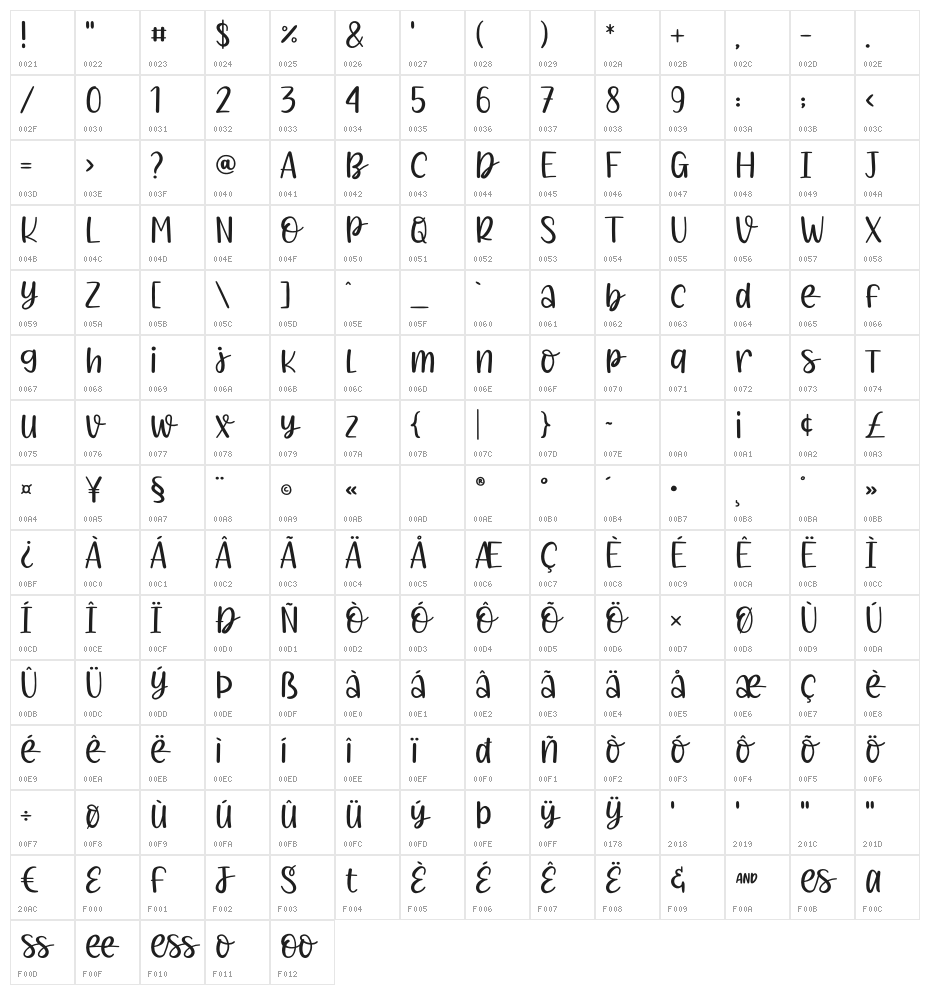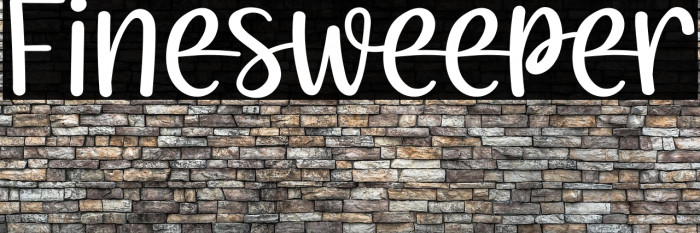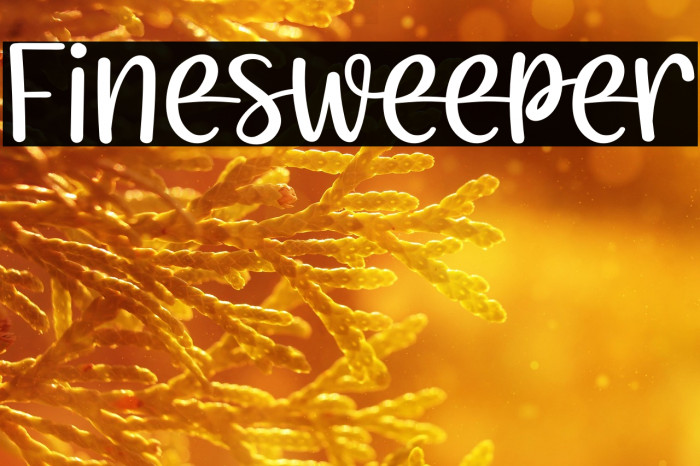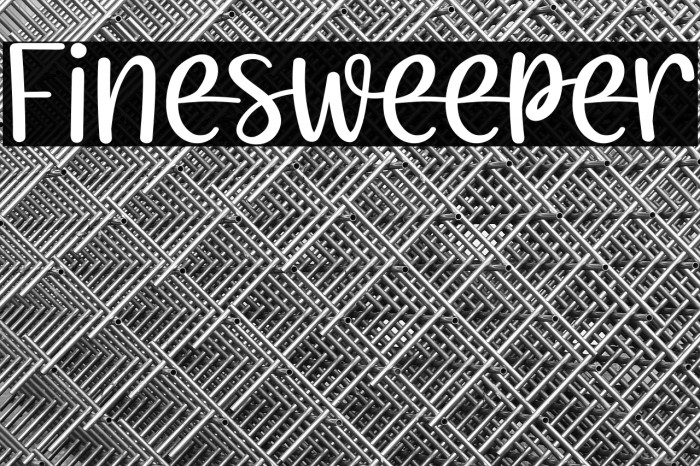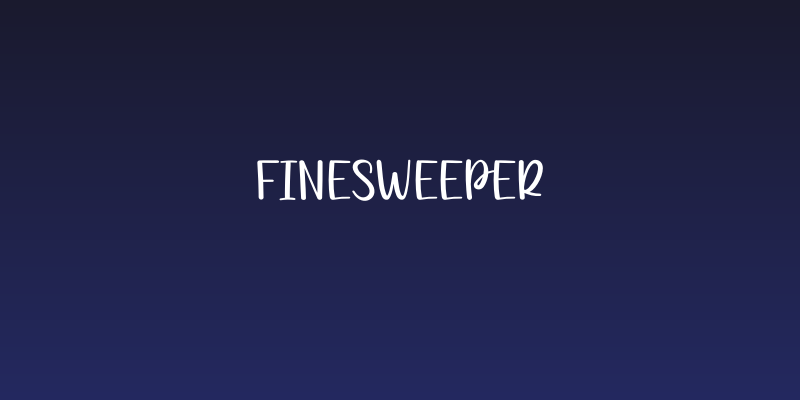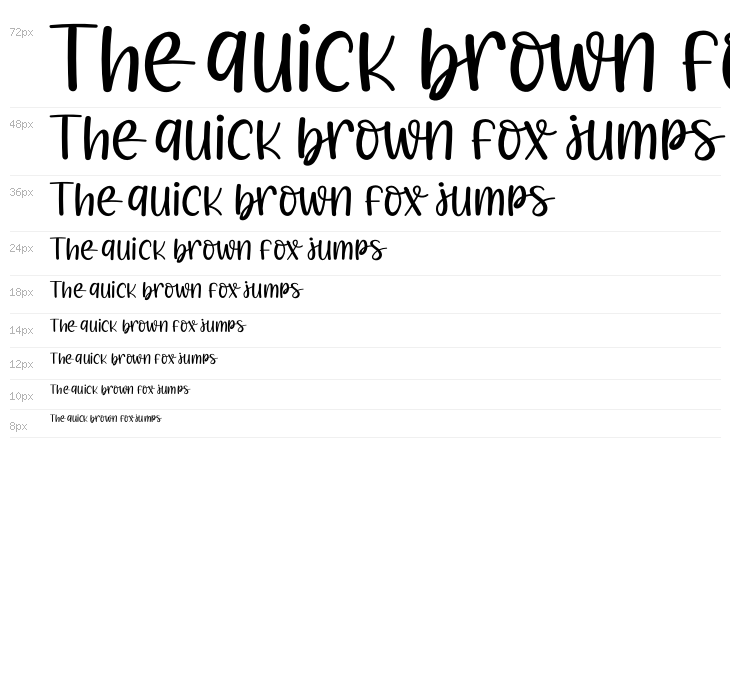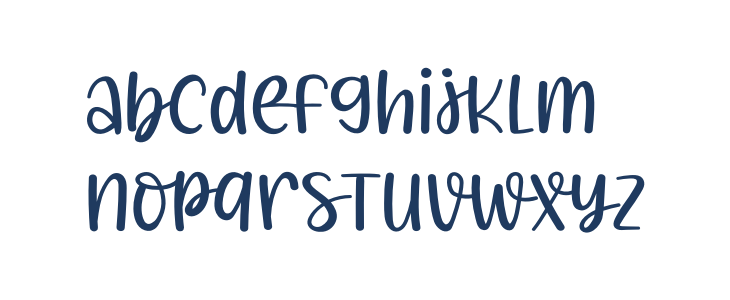
Finesweeper Font
Finesweeper Description
This playful and energetic font features a handwritten style with a casual and friendly appearance. The letters are slightly slanted, adding a dynamic feel, while the strokes are bold and consistent, providing a strong visual impact. The uppercase and lowercase letters maintain a cohesive look, with rounded edges and smooth curves that enhance readability. The numbers and special characters are designed to match the overall style, ensuring versatility across different uses. This font's informal yet clear design makes it suitable for a variety of creative projects.